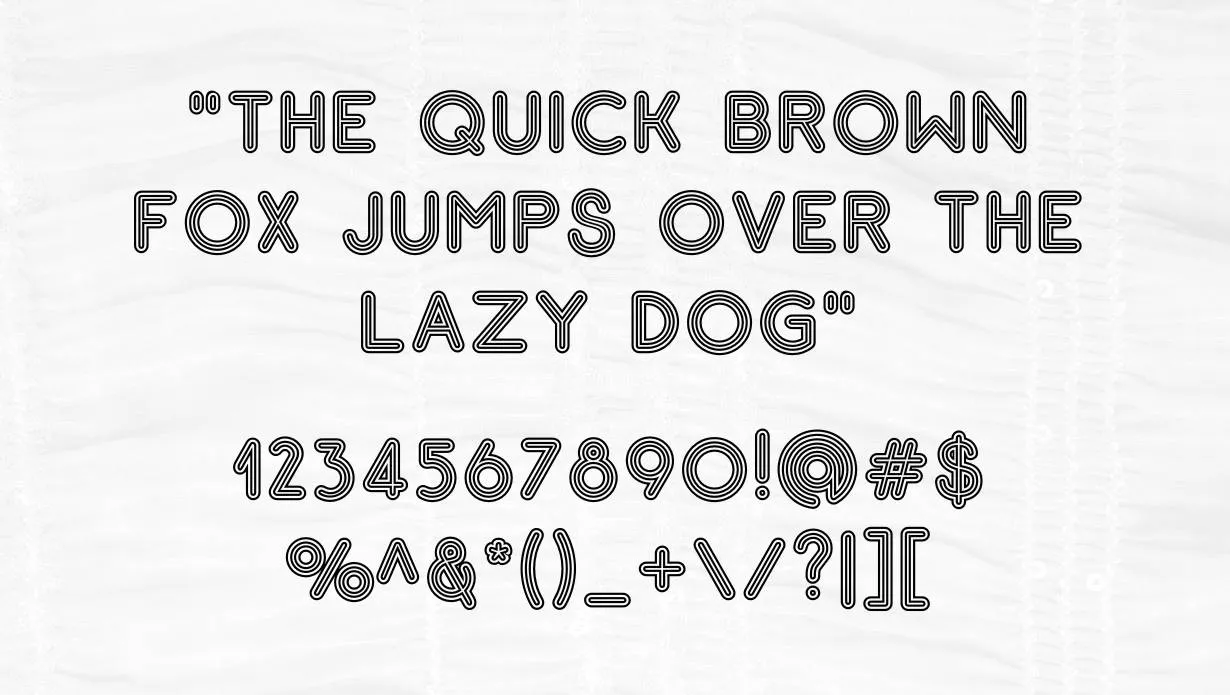
Gluck Stripes Font features a dynamic and striped design that adds movement and energy to your designs.
It’s great for active and vibrant projects, such as sports events, dance performances, or lively product branding. Gluck Stripes Font infuses a sense of vitality and action into your work.
Gluck Stripes Font Family